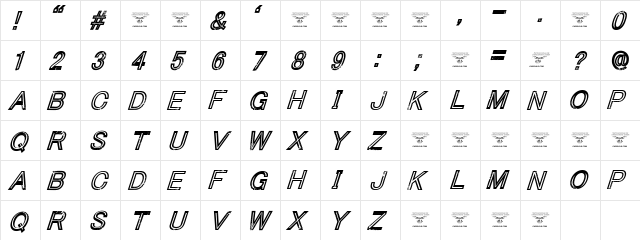
Tha Cool Kidz Italic
Design Context for Tha Cool Kidz Typeface
Tha Cool Kidz is a composed and adaptable typeface that performs quietly and consistently across a wide range of design contexts. Its italic angle brings a sense of urgency and motion to the letterforms.
Pro Tip: Use Tha Cool Kidz for emphasis, pull quotes, and subheadings where its slanted energy can add rhythm to the layout.